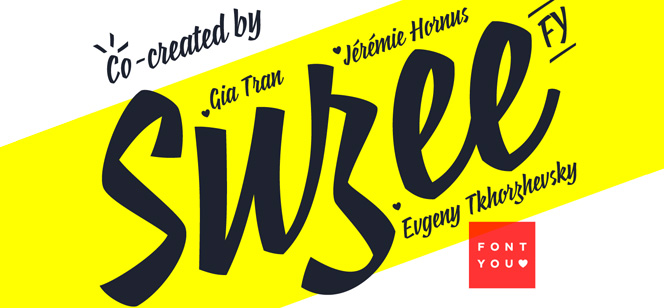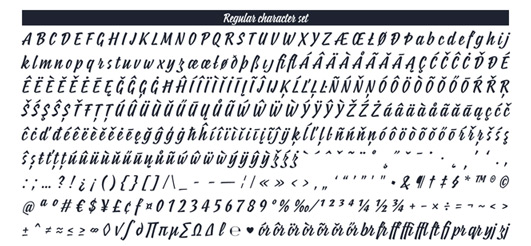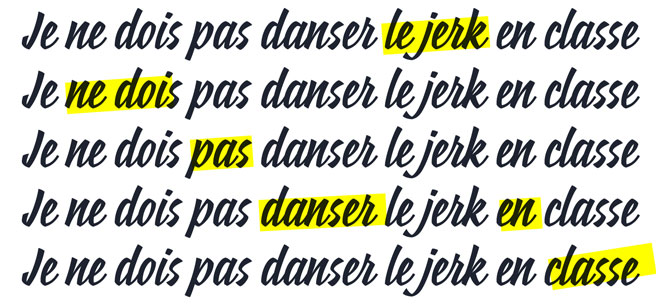
Suzee FY font
Suzee FY font is a vintage script showing the beauty of marker felt hand lettering. This semi-connected typeface has specific condensed look mixed with sharp elements making the whole appearance angular and geometric yet harmonious and elegant preserving the natural hand-writing style. Suzee FY font is perfect for strong and artistic headlines or brand-names where a single world must attract all the attention of the audience. It’s also a great choice for packaging, menu boards, posters, expressive t-shirts and other retro designs. Though it is developed in a single weight, Suzee FY shows enough character and diversity to satisfy even the most sophisticated demands. Working with high contrast and excellent legibility this font will surely amaze you how nice it works with e-books, apps, screen use, etc., though if you want to feel maximum of it potential, you definitely should screen-print it or letterpress it – that is what this font is made for!